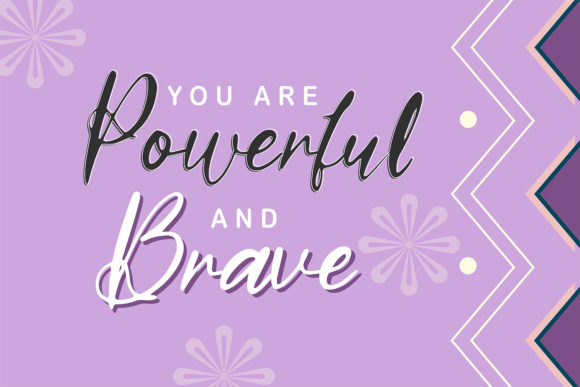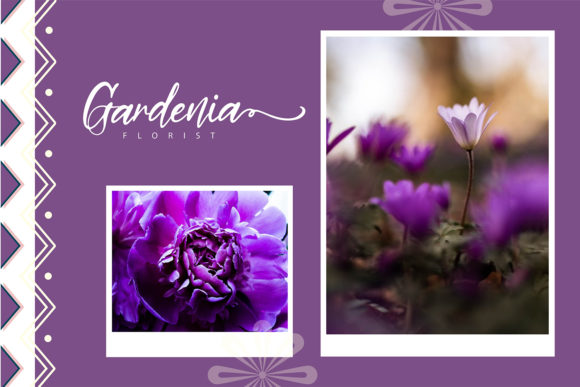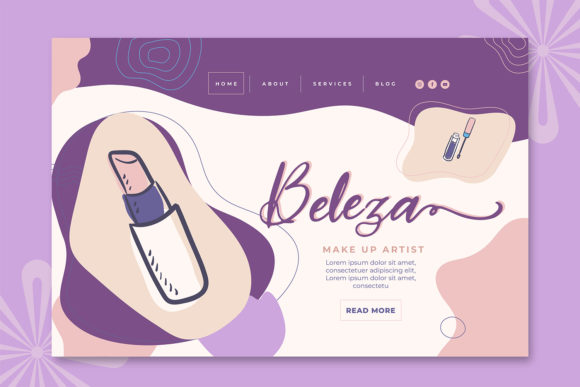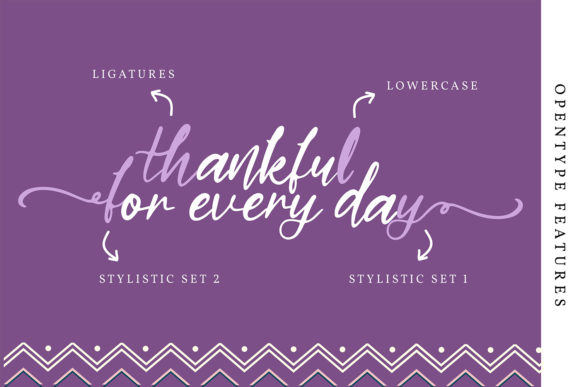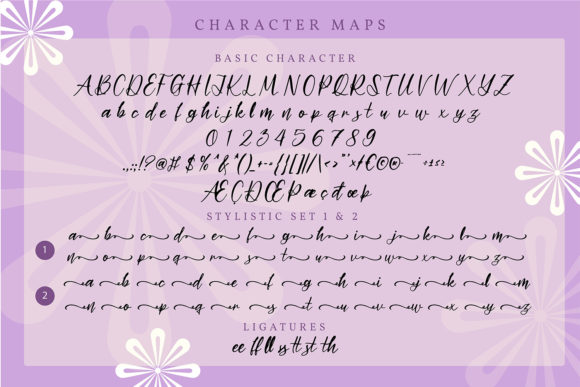
The Elanore Font: A Whimsical Script to Elevate Your Designs
Have you ever been in the middle of a design project, and suddenly, you’re stuck on finding the perfect font? I recall a recent experience where I was working on a branding project for a boutique client, and I just couldn’t find a script font that captured the relaxed, yet elegant vibe I was going for. That’s when I stumbled upon the Elanore font, and let me tell you, it was love at first sight! 💕
An Honest Review of Elanore Font
As a designer, I’m always on the lookout for fonts that can bring a unique touch to my projects. Here’s what I love about Elanore:
- ✨ Whimsical and relaxed theme that’s perfect for creative projects
- 💫 Incredibly versatile style that works well for titles, headings, and body text
- 🎨 Beautifully crafted to add a touch of elegance to any design
While Elanore is an amazing font, there are a few small quirks to keep in mind:
- 🤔 Some users may find the font a bit too ornate for very small text sizes
- ⚠️ Limited availability of certain characters, but this can be worked around with OpenType features
The Story Behind Elanore Font
While the true story behind Elanore’s creation is unknown, it’s easy to imagine that the designer was inspired by the elegance of handwritten scripts and the playfulness of modern typography. Perhaps the designer was a lover of vintage typography and wanted to create a font that captured the essence of classic scripts with a modern twist.
| Font Name | Elanore Font |
| Author | Vunira |
| What is the Elanore font best used for? | The Elanore font is best used for creative projects that require a touch of elegance and whimsy, such as branding, packaging, and stationery. |